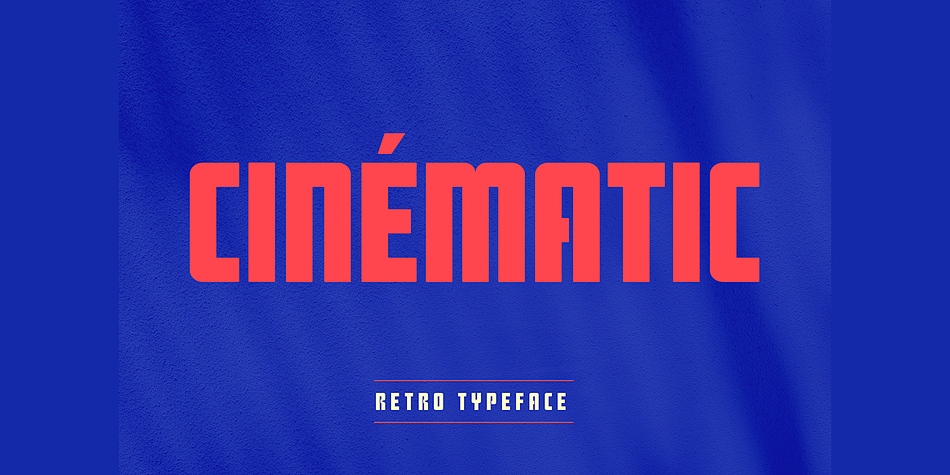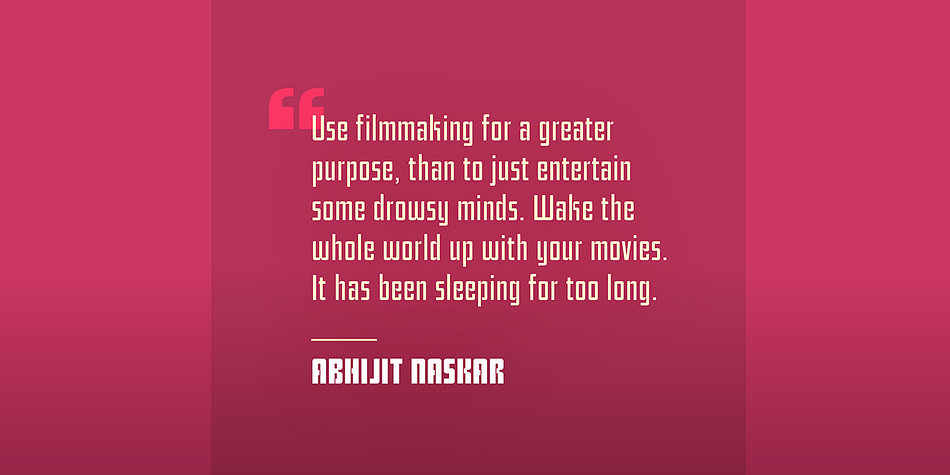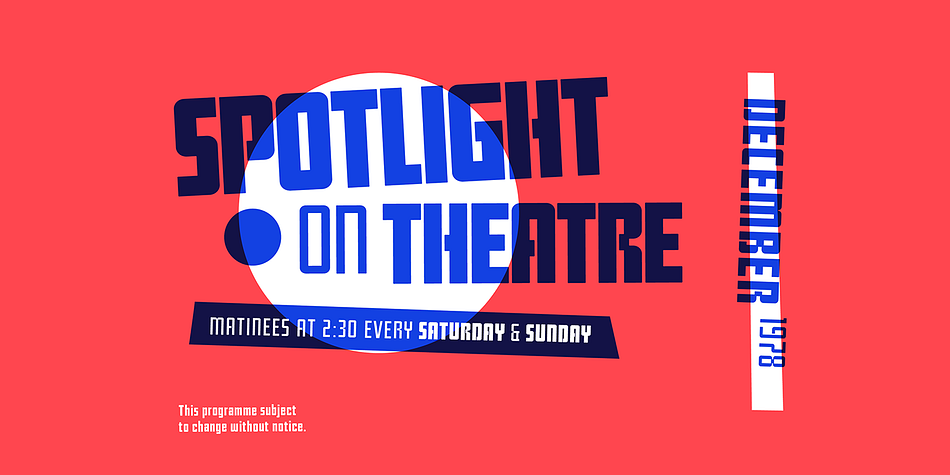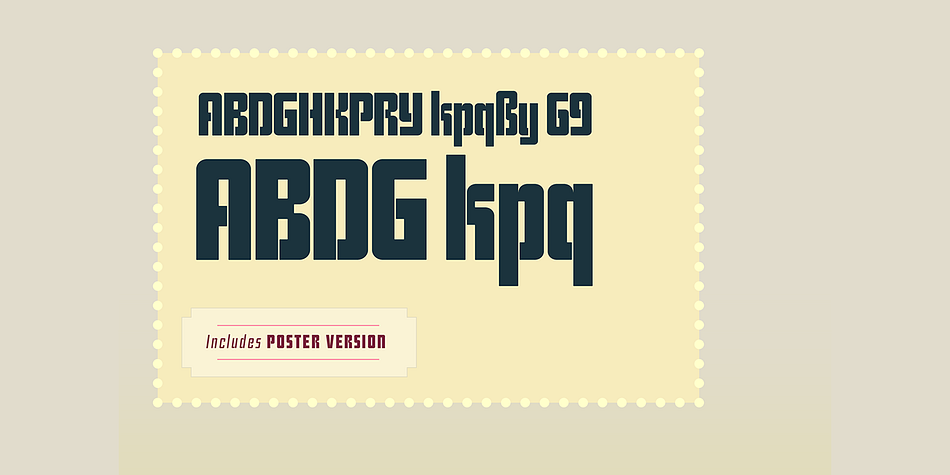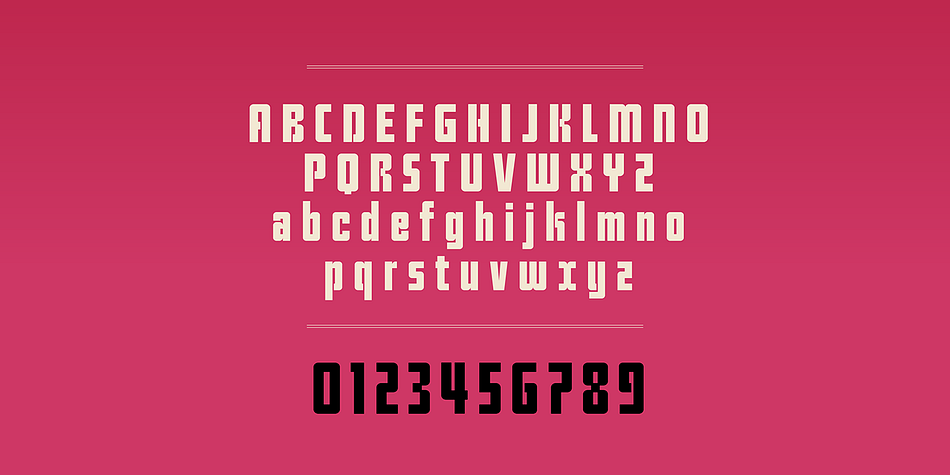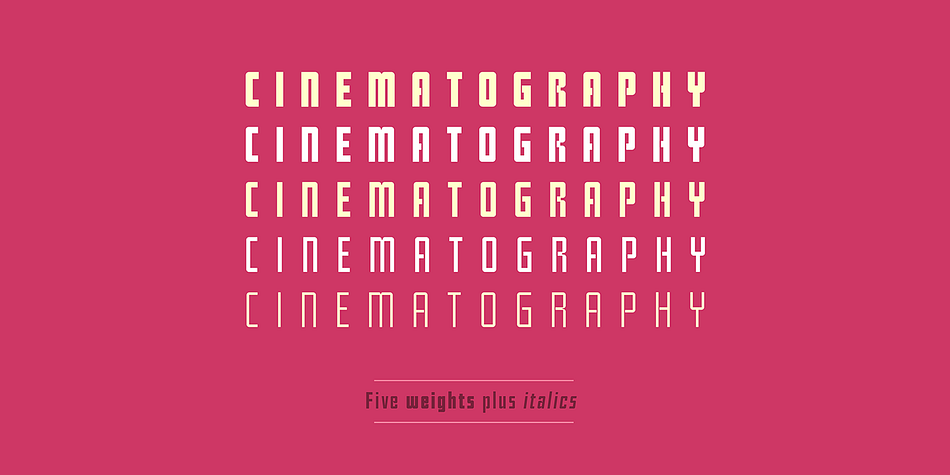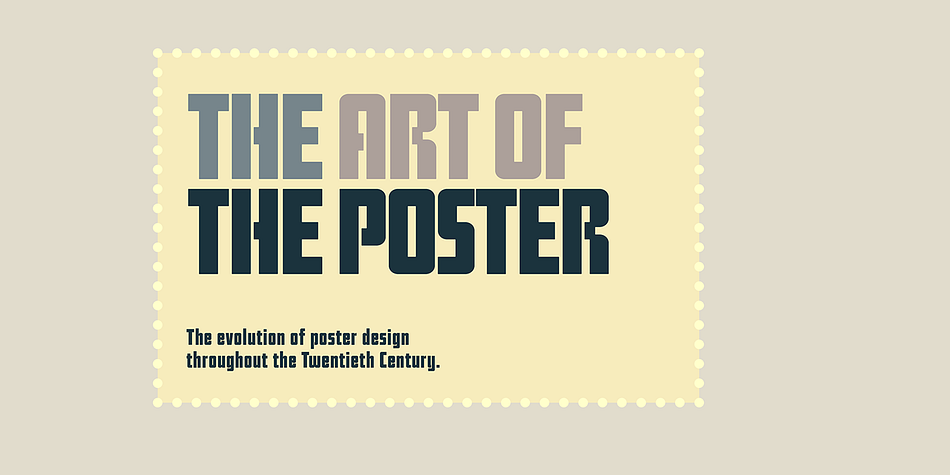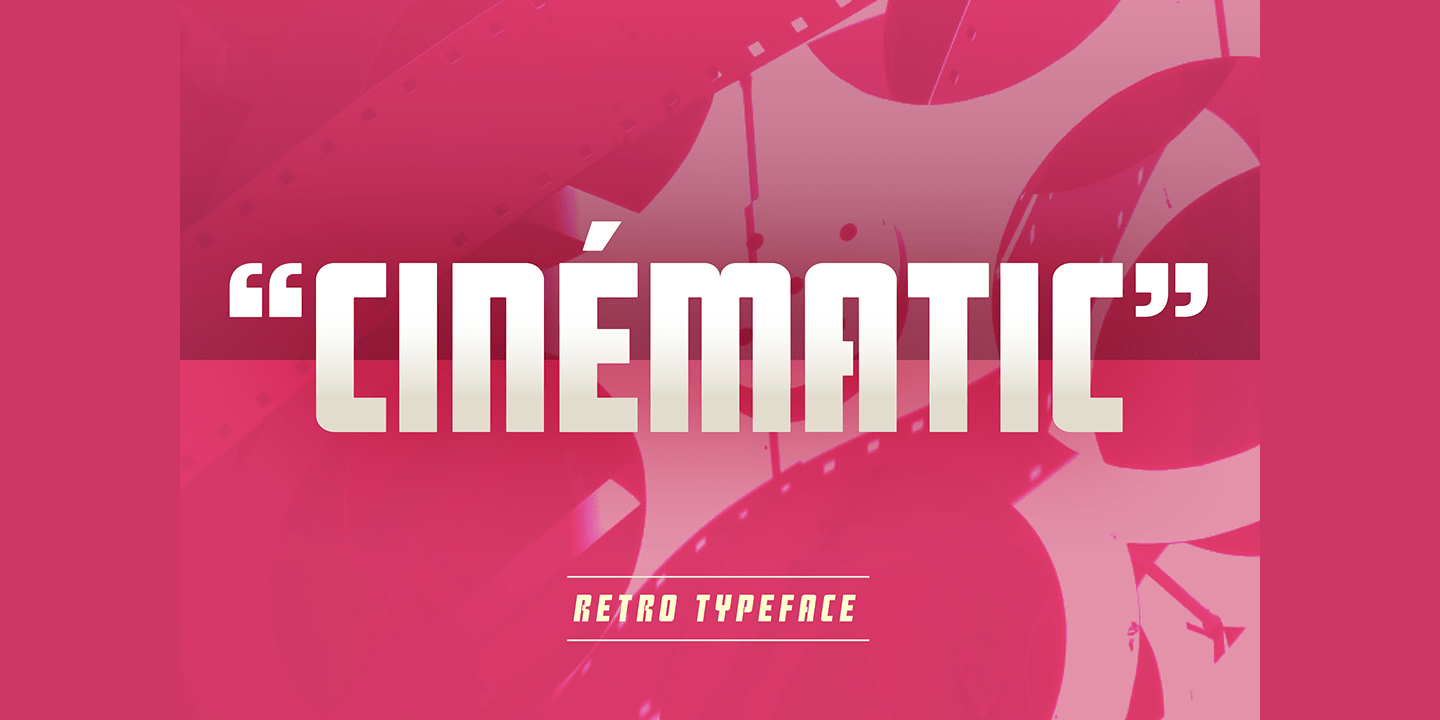
Designed by Craig Stainton, SB Cinematic is a display sans font family. This typeface has twelve styles and was published by SelfBuild Type Foundry.
SB Cinematic is a display sans serif in five weights. It includes italics and a poster version of the Extrabold weight for use at large sizes.
Designer | Craig Stainton |